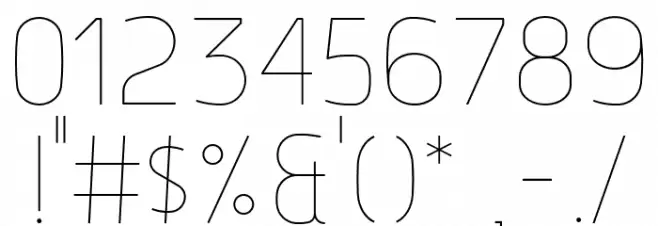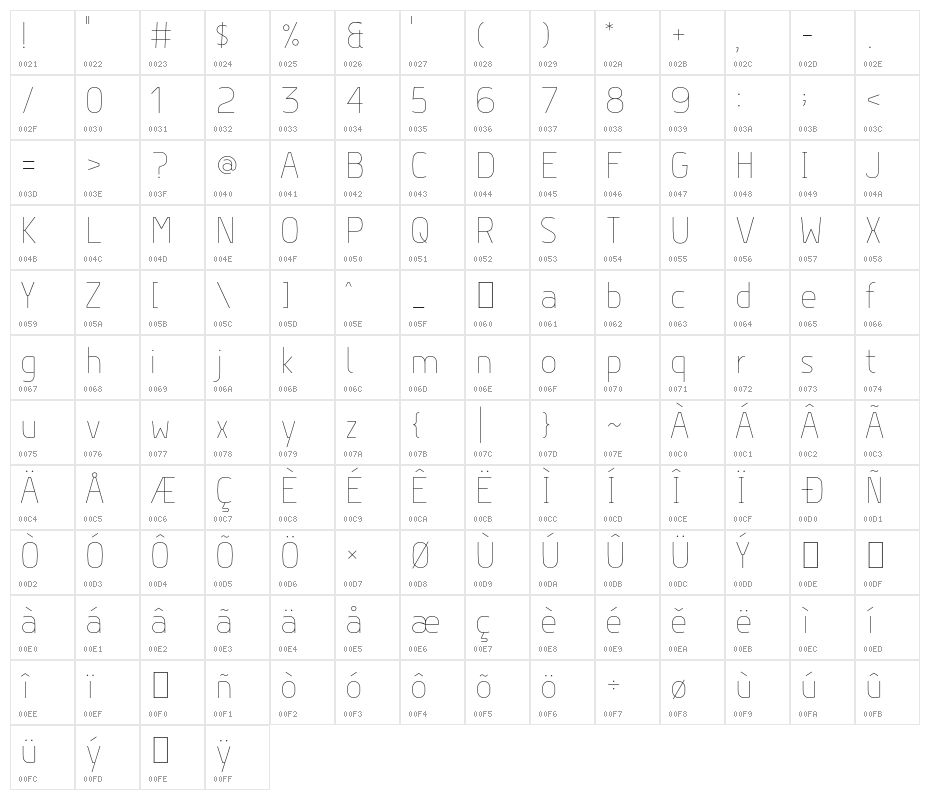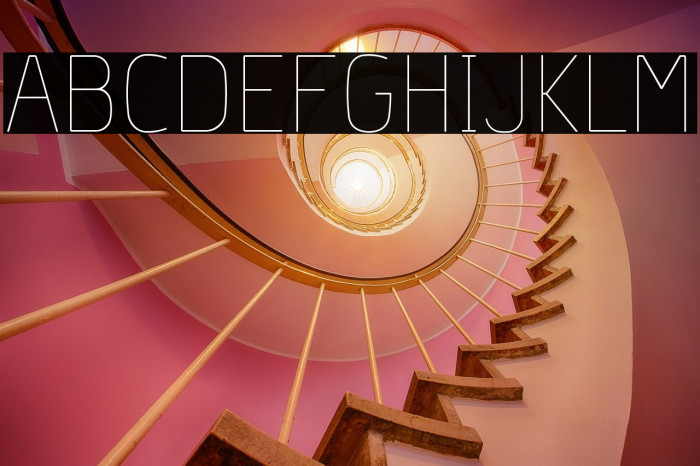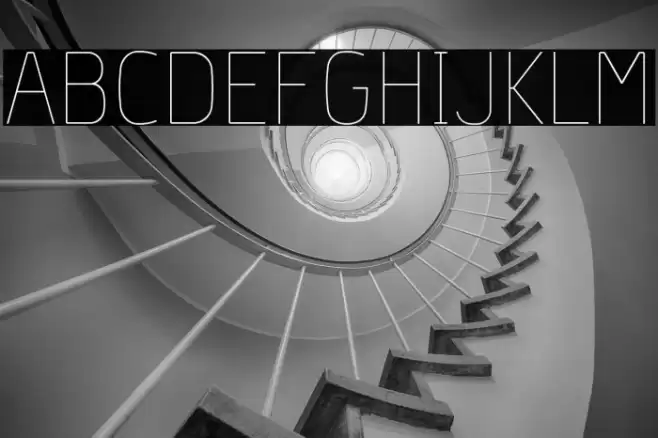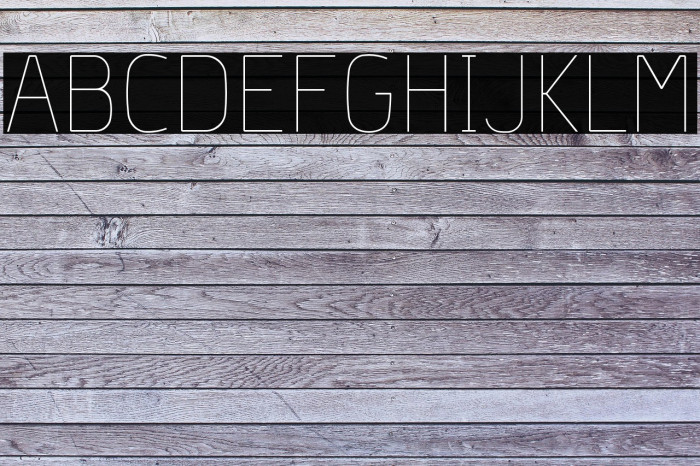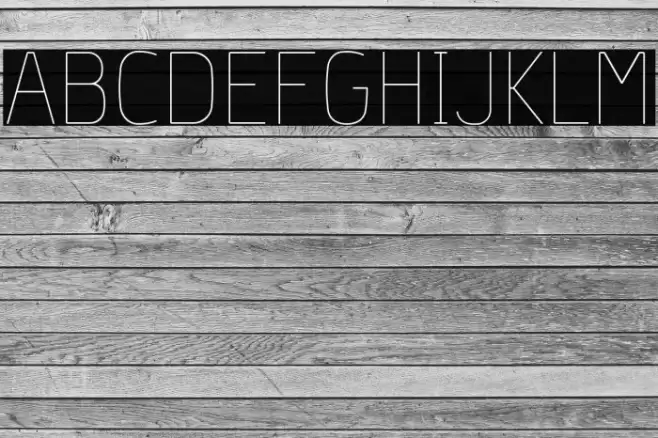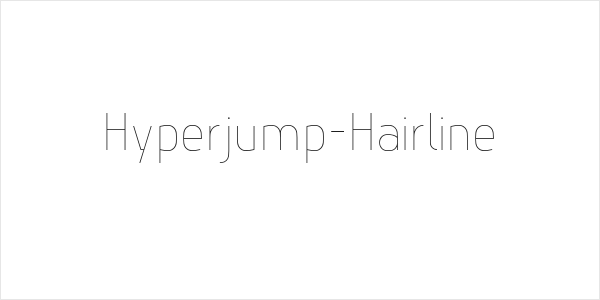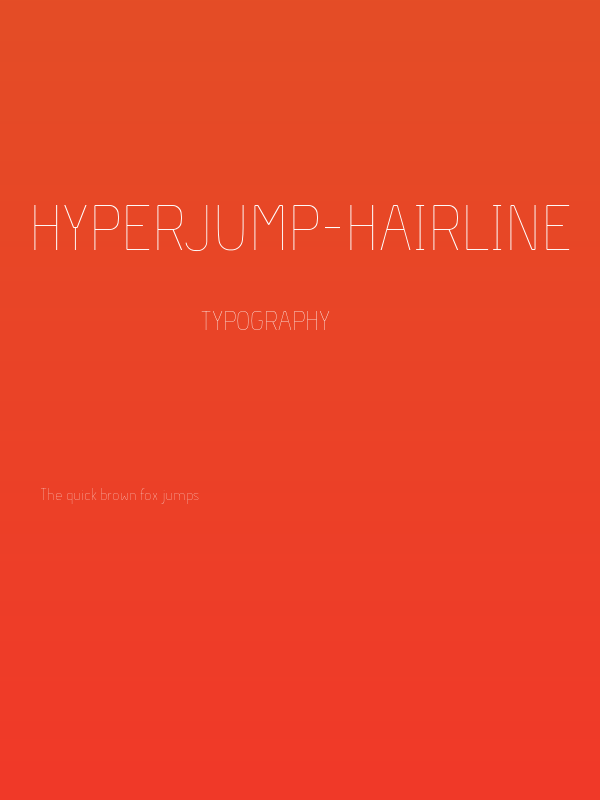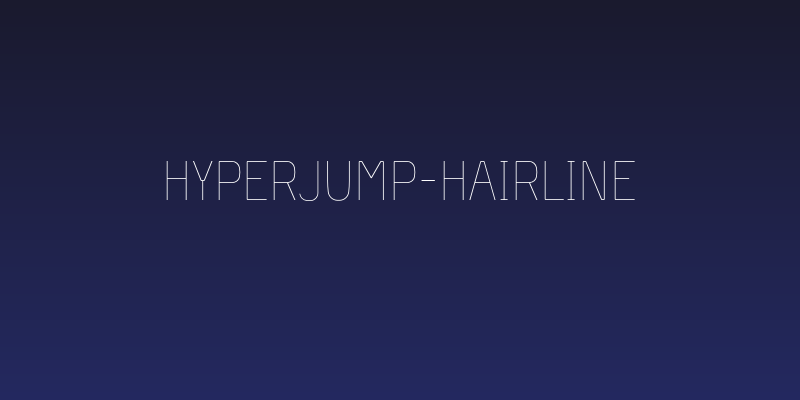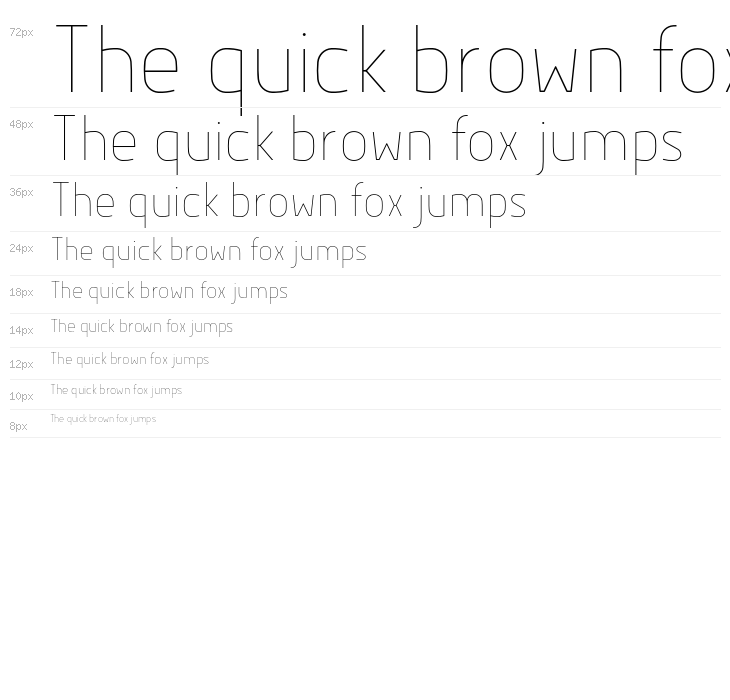
Hyperjump-Hairline Font
Hyperjump-Hairline Description
This font features a sleek, ultra-thin design with a modern aesthetic. The characters are crafted with precision, showcasing a minimalist style that emphasizes clarity and simplicity. The uppercase and lowercase letters maintain a consistent height and width, contributing to a harmonious appearance. The numerals and special characters are designed with the same attention to detail, ensuring uniformity across all elements. This font's hairline strokes and geometric shapes make it ideal for contemporary design projects that require a clean and sophisticated look.